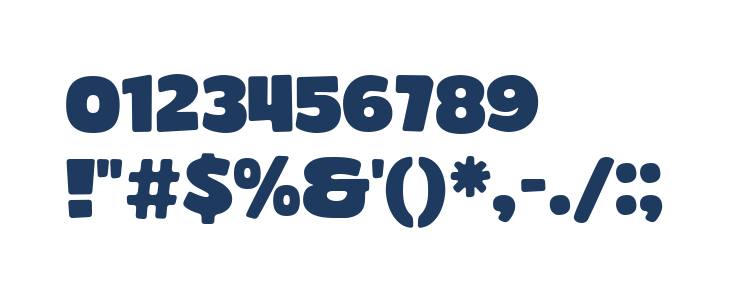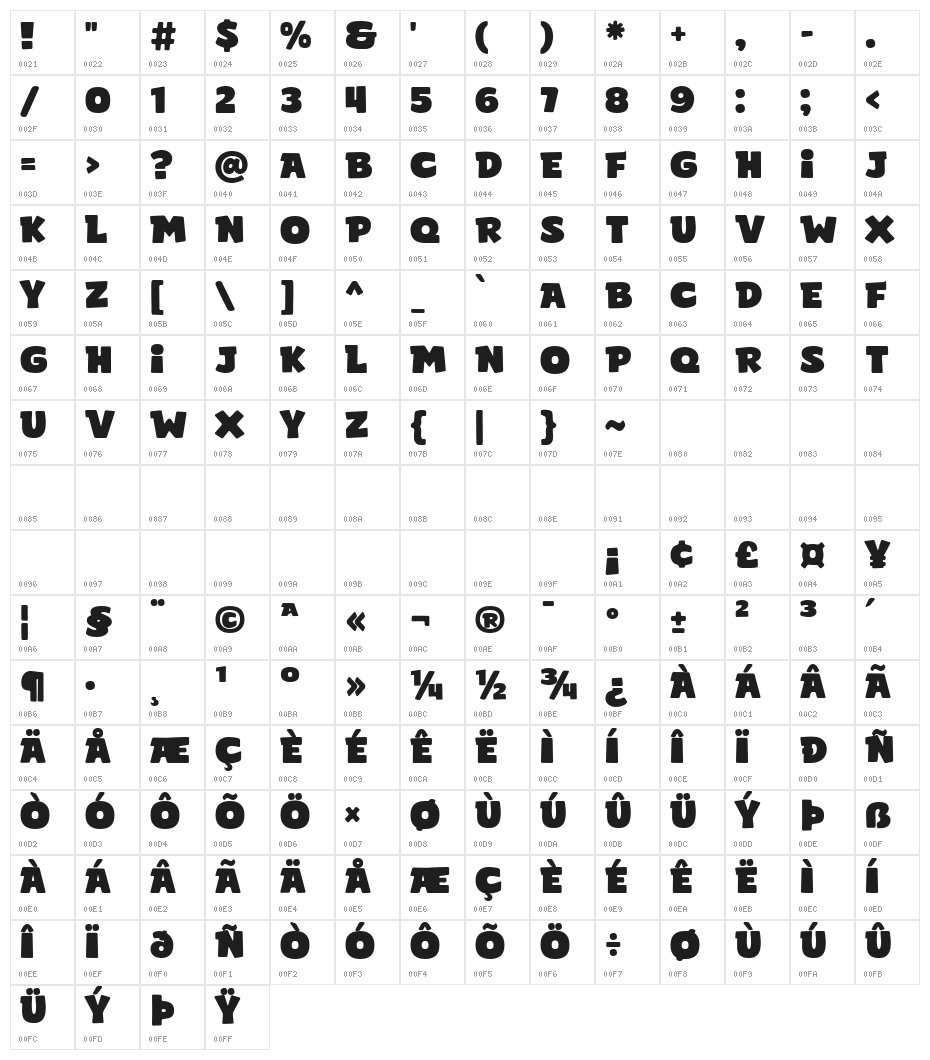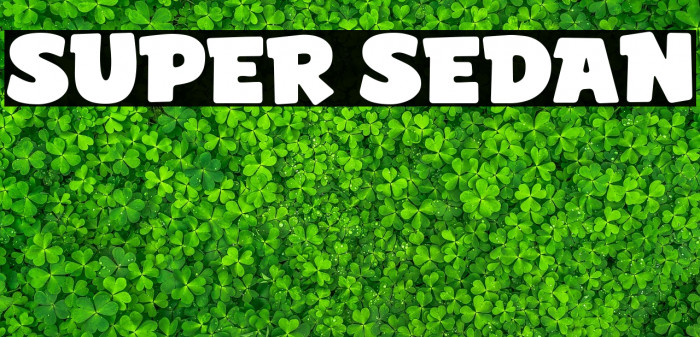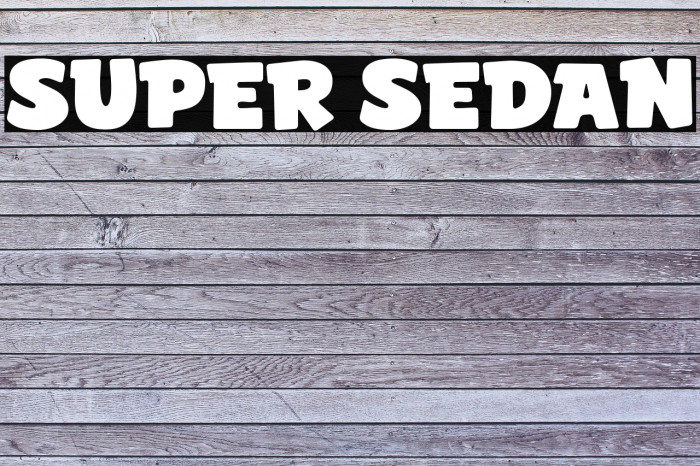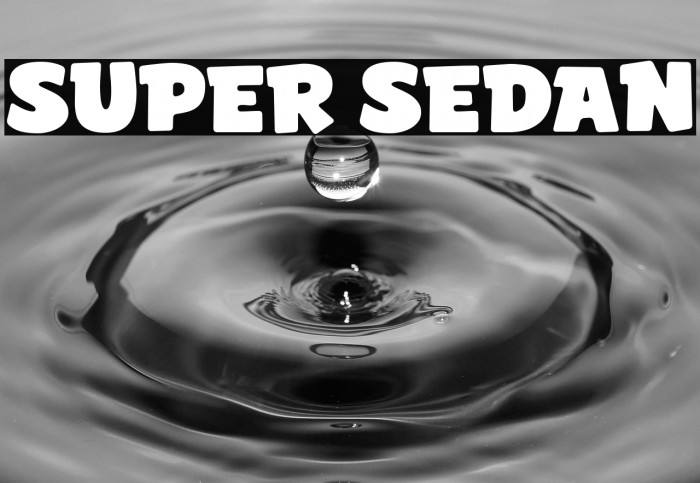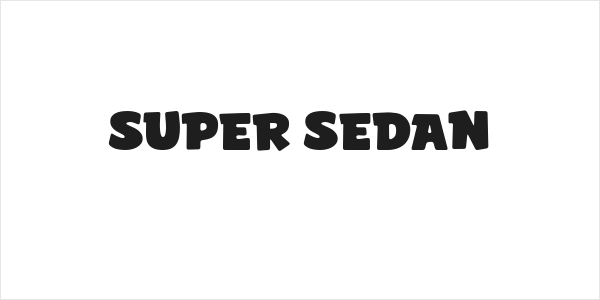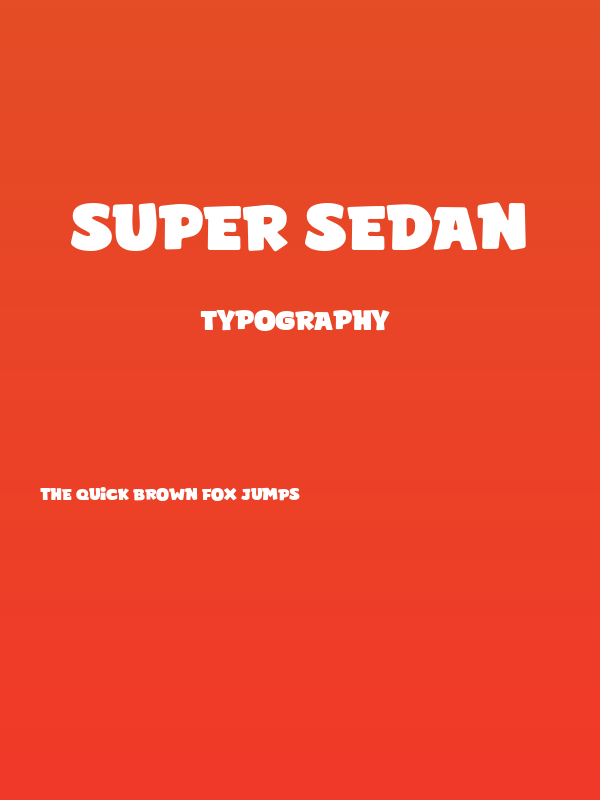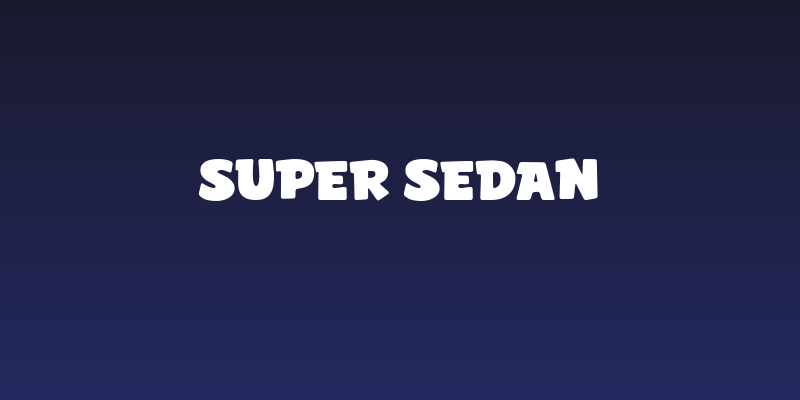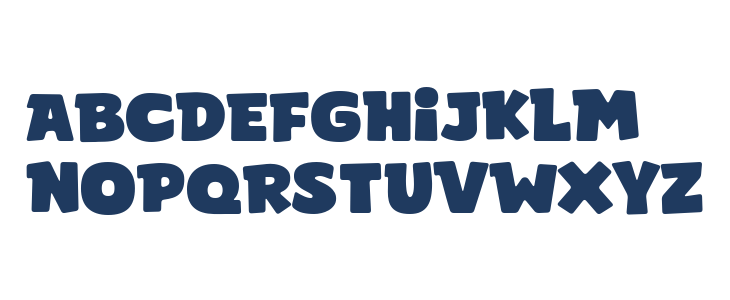
Super Sedan Font
Super Sedan Description
This bold and playful font features thick, rounded characters with a slightly irregular shape, giving it a fun and energetic feel. The uppercase and lowercase letters maintain a consistent weight, creating a cohesive look. The numbers and special characters follow the same style, ensuring uniformity across all text. Its exaggerated curves and bold presence make it ideal for eye-catching designs. The font's unique style is perfect for projects that require a lively and informal touch, such as children's books, party invitations, or playful branding.
Overall StylePlayful
Proposed ProjectsIdeal for children's books, party invitations, playful branding, and eye-catching designs.